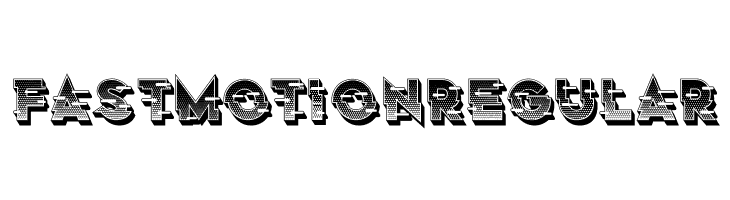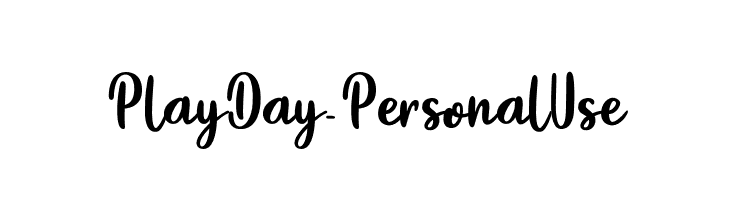
A playful and artistic handwritten font with fluid strokes and dynamic style.
A bold, three-dimensional decorative font with a retro-futuristic style.
A bold, angular font blending Western and Samurai styles.
A playful, handwritten font with a smooth, flowing style and decorative elements.
An elegant, flowing script font with decorative loops and a romantic style.
A decorative script font with elegant, flowing letterforms and ornate details.
A playful, elegant script font with a handwritten touch.
A playful and elegant handwritten script font with fluid strokes.
A playful, handwritten font with bold, rounded uppercase and cursive-like lowercase letters.
A bold, brush-style script font with an energetic and artistic flair.